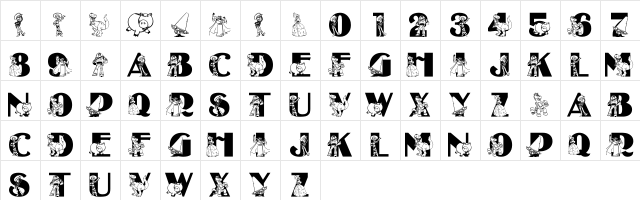
LMS Beyond Infinity Regular Font Preview
LMS Beyond Infinity Regular
Design Context for LMS Beyond Infinity Typeface
LMS Beyond Infinity is a composed and adaptable typeface that performs quietly and consistently across a wide range of design contexts.